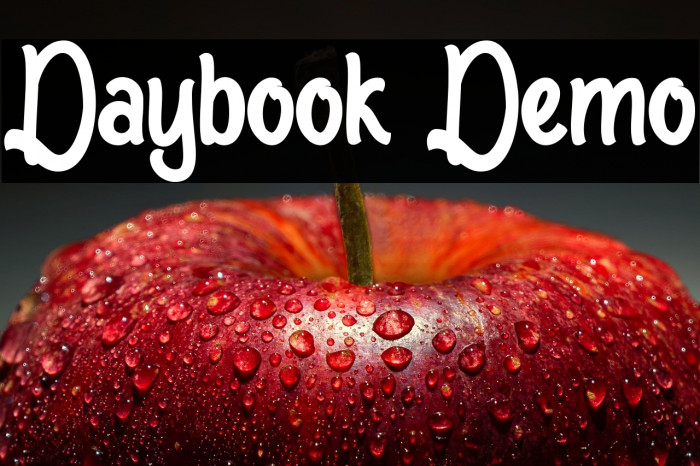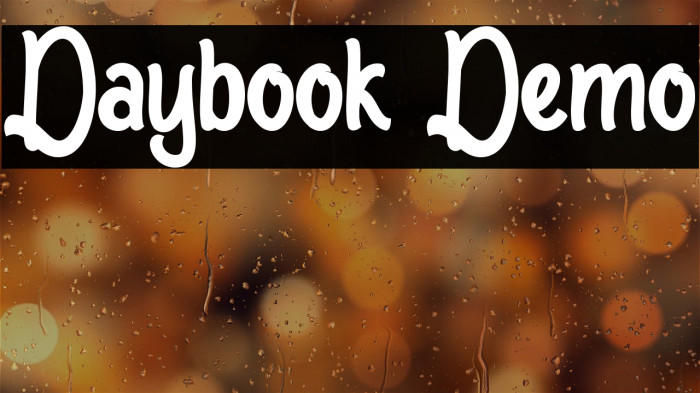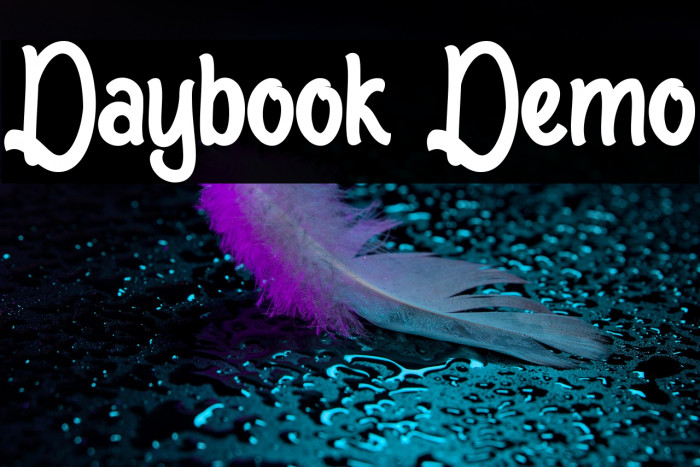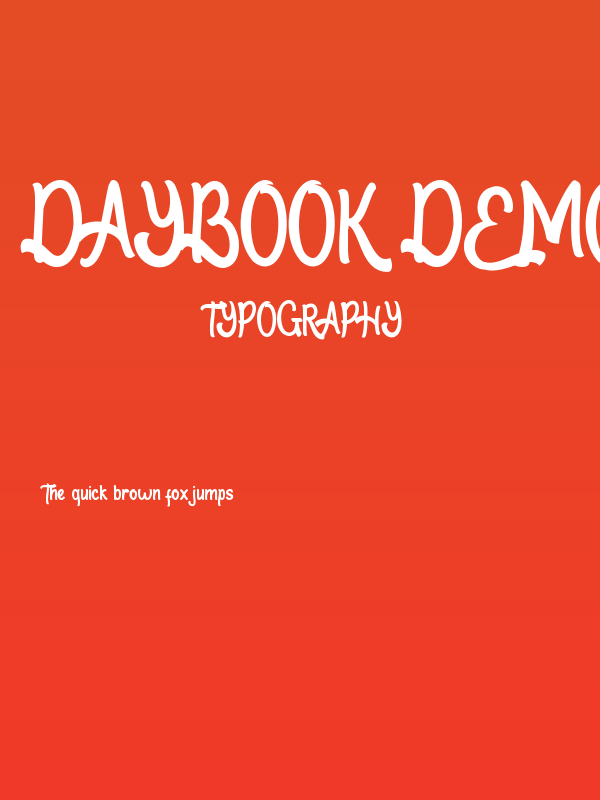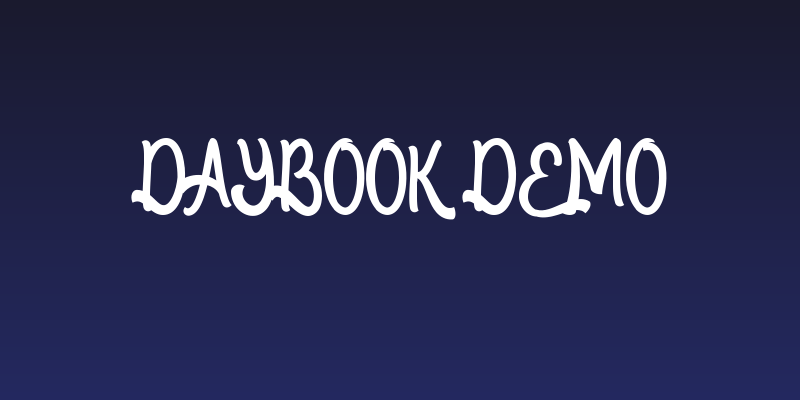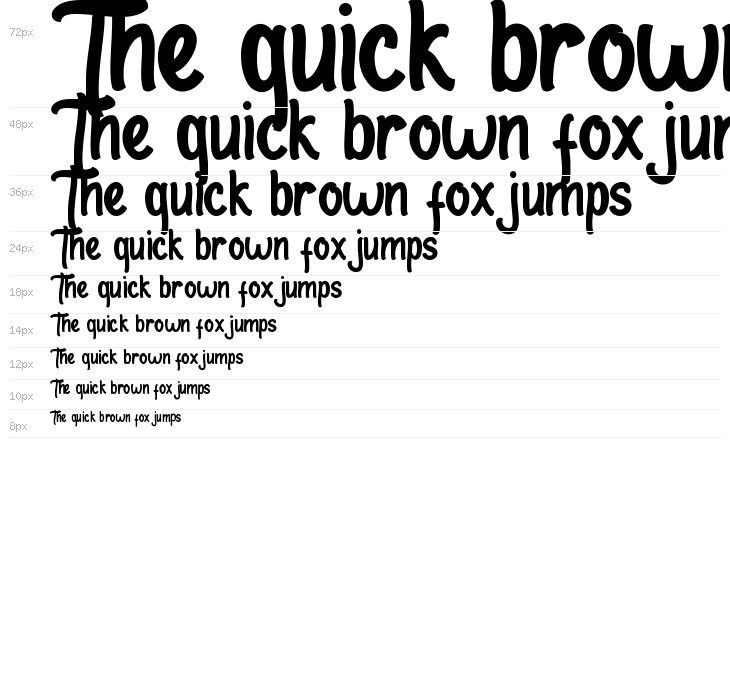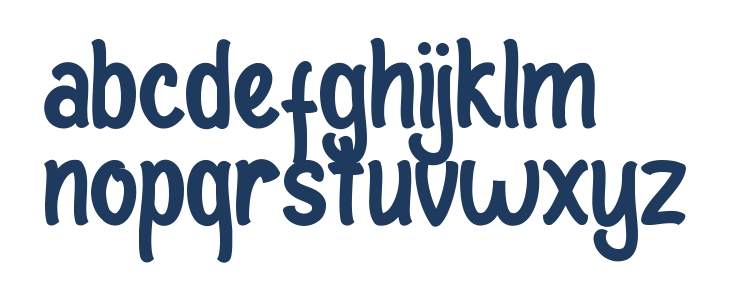
Daybook Demo Font
Daybook Demo Description
This font features a playful and bold handwritten style, characterized by its thick strokes and rounded edges. The uppercase letters exhibit a whimsical flair with varying stroke widths, giving them a lively and dynamic appearance. The lowercase letters maintain a consistent thickness, providing a harmonious balance with the uppercase set. The font's overall look is casual yet impactful, making it suitable for projects that require a touch of personality and creativity. Its unique style stands out, making it ideal for eye-catching designs.
| Overall Style | Playful, Casual |
| Proposed Projects | Perfect for greeting cards, children's books, playful branding, and social media graphics. |